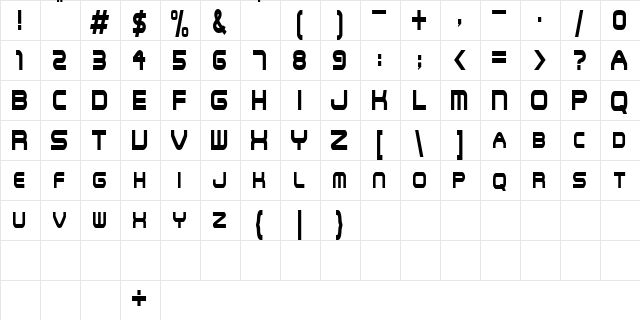
SNFUCondensed Regular
Design Context for SNFUCondensed Typeface
SNFUCondensed takes a measured approach to typography — its balanced proportions and neutral character make it a reliable workhorse for both digital and print work. Its narrow stance lets it pack a punch even in space-constrained designs.